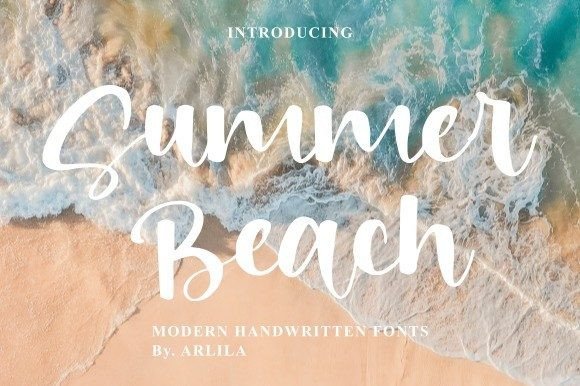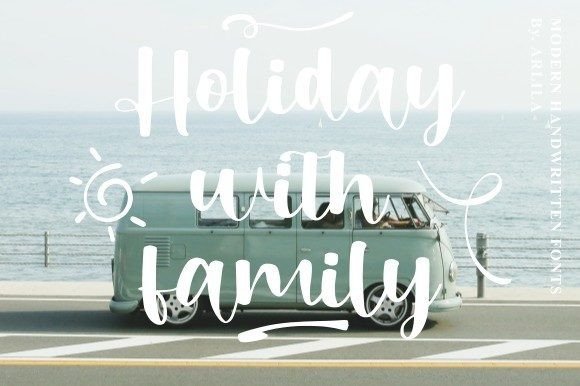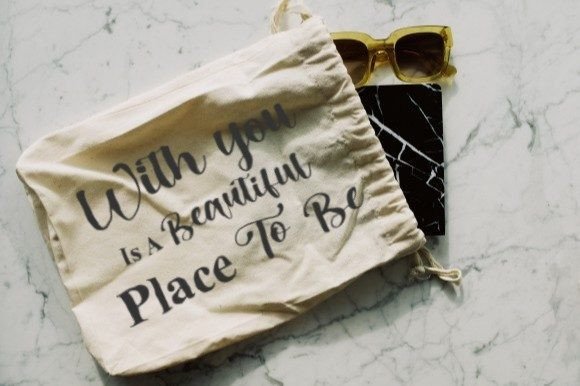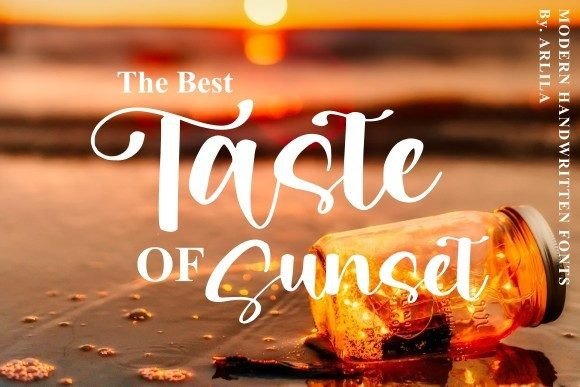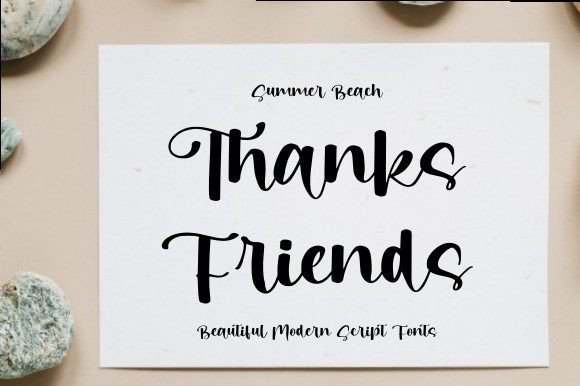
Summer Beach Font
Summer Beach is a very well-made and high-quality script font featuring fun and friendly characters. Use it to turn any design idea into a true standout. Get inspired by its unique charm and create lovely designs.